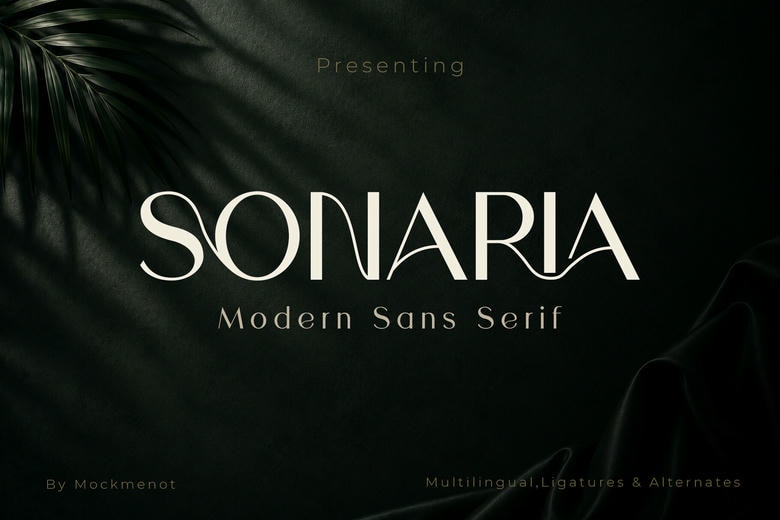
Sonaria Font
Sonaria is a modern sans-serif font that blends a minimalist look with elegant details. It was designed to look premium and sophisticated, with stylish ligatures and alternates that make your typography stand out.
Sonaria works well for high-end branding and modern editorial design. It looks great in large headlines and adds a refined touch to visual identities.
Sonaria Elegant Modern Sans Serif Font